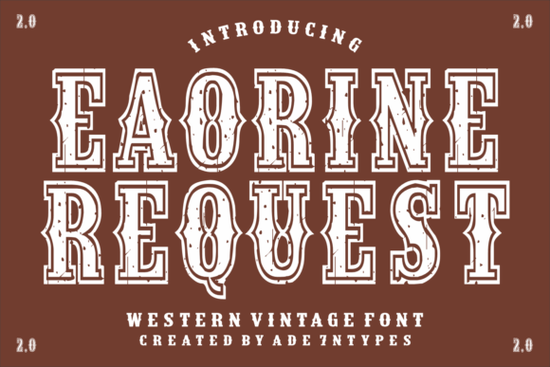
Finding a typeface that feels both established and fresh is a common challenge for designers working on rugged branding projects. You need something that commands attention without looking overly polished or generic. Eaorine Request addresses this need by offering a monumental display slab-serif style. It bridges the gap between old-school frontier saloon typography and modern industrial streetwear layouts. This makes it a strong candidate for independent craft distillery seals, custom motorcycle house apparel, and boutique barbershop branding.
When you are building a visual identity for outdoor gear packaging or high-impact social media headers, the weight of your letters matters. Heavy slab serifs provide a sense of durability and trust. They suggest that the product behind the logo has been tested over time. This specific font family allows you to forge a legacy on your creative canvas without relying on overused geometric sans-serifs. It stands out because it retains character in its strokes, mimicking the wear and tear of physical materials.
What kind of projects benefit from this look?
The versatility of a rugged slab-serif extends beyond just logos. While it shines in branding for masculine or industrial niches, it also works well for event posters that need to feel grounded. If you are designing for a craft brewery or a coffee roaster, this style communicates authenticity. You might compare its presence to other bold options, such as the humanist touches found in bold display variations that prioritize character over strict geometry.
For print-on-demand sellers, readability is key when scaling designs down for t-shirts or up for banners. This typeface maintains its integrity at various sizes. When you need a cleaner look for secondary text, you might pair it with something more understated. Options like simple initial styles can complement the heavy headers without competing for attention. This balance ensures your customer sees the main message first, followed by supporting details.
How do you balance heavy lettering in a layout?
Working with monumental type requires careful attention to whitespace. If you crowd the letters, the design feels claustrophobic. Give the text room to breathe. This is especially important for boutique barbershop branding where the vibe is often classic and open. You can introduce organic elements to soften the industrial edge. For instance, incorporating floral or vine-like graphics similar to organic display choices can create an interesting contrast against the rigid slab serifs.
Seasonal promotions also benefit from distinct typography. While a rugged font works year-round, you might switch to something sweeter or more festive for holiday campaigns. Styles reminiscent of seasonal script options can handle the holiday cheer while your main brand font maintains consistency. This approach keeps your core identity strong while allowing flexibility for marketing pushes.
For construction or heavy industry clients, the font choice must reflect strength. You want letters that look like they were built rather than written. In these cases, looking at industrial themed typefaces can provide additional inspiration for pairing or alternative uses. The goal is to ensure every element on the page reinforces the message of durability and reliability.
Technical considerations for digital and print
Before finalizing your design, check the kerning pairs. Slab serifs can sometimes look uneven if the spacing is too tight. Adjust the tracking to ensure uniform color across the text block. When exporting for web use, ensure you have the correct file formats to maintain crisp edges on high-resolution screens. For print, verify that the stroke weight holds up against the printing method, especially if you are using textured paper for packaging.
Social media headers require special attention to cropping. Ensure the most important parts of the words are visible on mobile devices. You might need to create a stacked version of the logo for square formats. Test your designs across different platforms to guarantee legibility. A font that looks great on a desktop monitor might lose detail on a small phone screen if the strokes are too intricate.
- Check Contrast: Ensure the font color stands out against your background texture.
- Test Scaling: View your design at 100% and 50% zoom to check for clarity.
- Pair Wisely: Use a simple sans-serif for body text to let the display font shine.
Start by sketching your layout with placeholders to understand the spatial requirements of the heavy lettering. Once you are satisfied with the composition, apply the typeface and refine the spacing. This method saves time and ensures a professional result that respects the character of the typography.